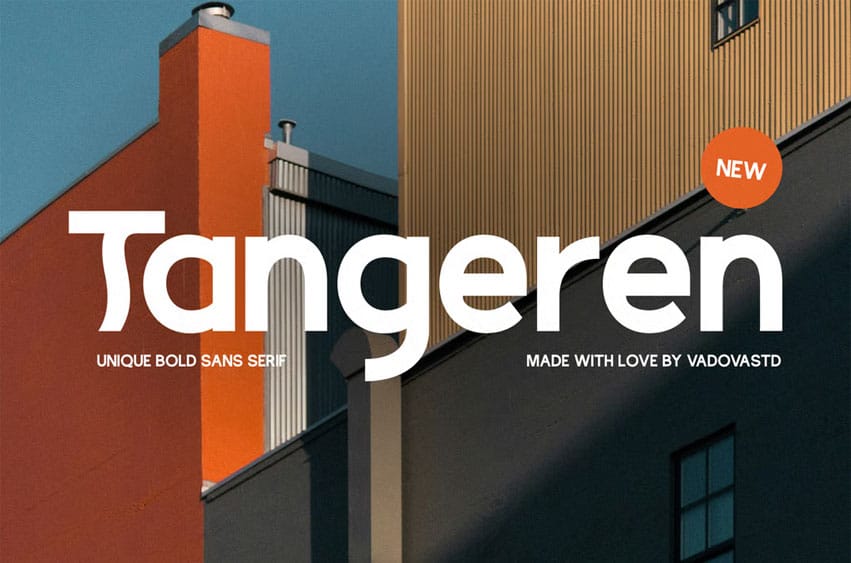
Tangeren Font Bold Sans Serif is a unique bold sans serif font with a geometric flair and artistic character alternates, designed to make a confident statement. Featuring clean lines, quirky terminals, and stylistic alternates, this font blends modern sans serif precision with expressive detail, making it ideal for editorial layouts, branding, technology visuals, and fashion-forward designs. Its strong personality and stylish structure also suit headlines, magazine covers, and visual identities that seek bold clarity and contemporary sophistication.
Relevance and Use Cases Tangeren is perfect for modern sans serif, geometric font, bold headlines, minimalist branding, logo design, editorial layout, magazine titles, creative agency branding, fashion look book, startup identity, clean web typography, tech product packaging, futuristic poster design, UI/UX headline font, architectural presentation, lifestyle branding, advertising design, corporate visual identity, social media graphics, branding for apps.